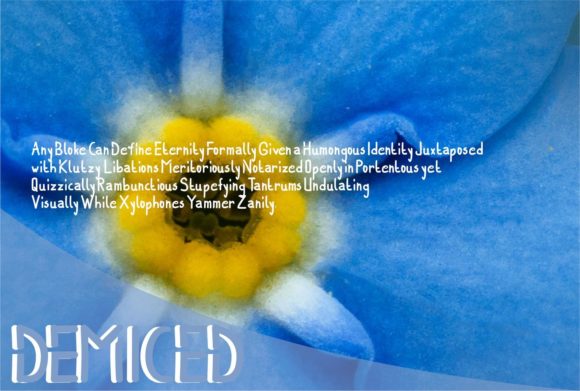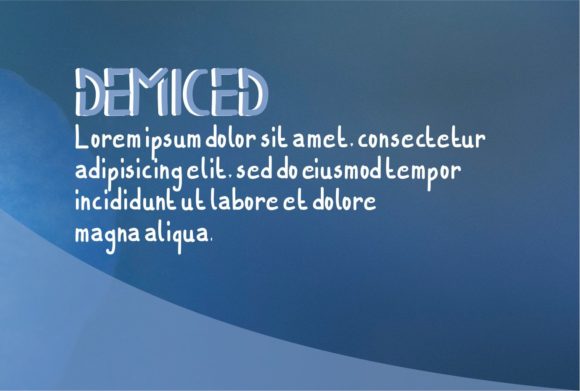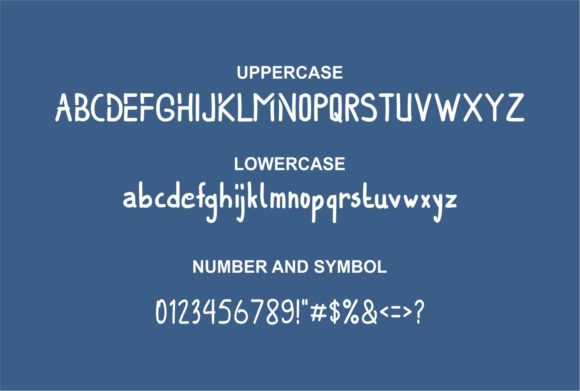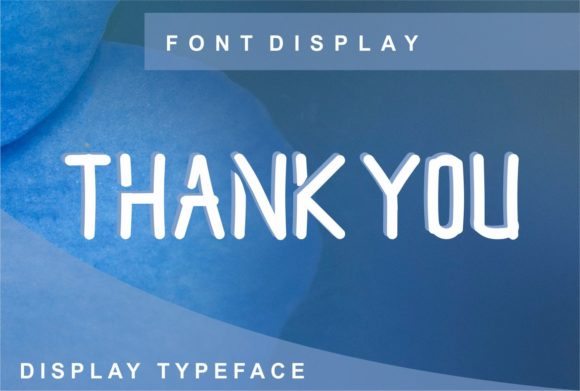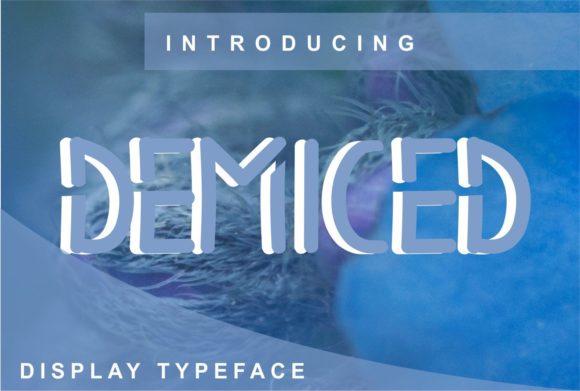
Discover the Versatility of Demiced Font: Elevate Your Designs with a Clean and Adaptable Display Font
In the world of typography, finding the perfect font that can elevate your designs and adapt to various themes can be a daunting task. However, if you’re looking for a font that can effortlessly enhance any creation, look no further than Demiced Font. This clean and adaptable display font is a wonderful asset to any font library, offering a wide range of possibilities for designers and crafters alike.
What Makes Demiced Font Stand Out?
Demiced Font boasts a sleek and modern design that is both visually appealing and highly versatile. Its clean lines and adaptable nature make it an excellent choice for various design projects, from branding and advertising to packaging and digital media. Whether you’re working on a minimalist design or a more complex project, Demiced Font can seamlessly integrate and enhance your creation.
Key Features of Demiced Font
- Clean and Modern Design: Demiced Font features a sleek and contemporary design that is perfect for creating modern and sophisticated designs.
- Adaptable: This font is highly adaptable and can be used for a wide range of design projects, from digital media to print materials.
- Highly Legible: Demiced Font is designed to be highly legible, making it perfect for use in body text, headlines, and titles.
- OpenType Features: This font features OpenType capabilities, allowing for advanced typographic control and flexibility.
Use Cases for Demiced Font
Demiced Font is an incredibly versatile font that can be used in a variety of design projects. Here are some use cases where Demiced Font can shine:
- Branding and Logo Design: Use Demiced Font to create a modern and sophisticated brand identity that stands out from the crowd.
- Advertising and Marketing Materials: This font is perfect for creating eye-catching headlines and titles for advertising and marketing materials.
- Packaging Design: Demiced Font can add a touch of elegance and sophistication to packaging designs, making products stand out on store shelves.
- Digital Media: Use Demiced Font in digital media, such as website headers, social media graphics, and email newsletters, to create a cohesive and professional look.
Tips for Using Demiced Font Effectively
To get the most out of Demiced Font, here are some tips for using it effectively:
- Experiment with Font Sizes: Demiced Font looks great in various font sizes, so don’t be afraid to experiment and find the perfect size for your design.
- Pair with Other Fonts: This font pairs well with other fonts, so try combining it with complementary fonts to create visual interest.
- Use OpenType Features: Take advantage of Demiced Font’s OpenType features to add advanced typographic control and flexibility to your designs.
In conclusion, Demiced Font is a clean and adaptable display font that can elevate any design project. Its versatility, legibility, and modern design make it an excellent choice for designers and crafters looking to add a professional touch to their creations. With its wide range of use cases and tips for effective use, Demiced Font is a wonderful asset to any font library.